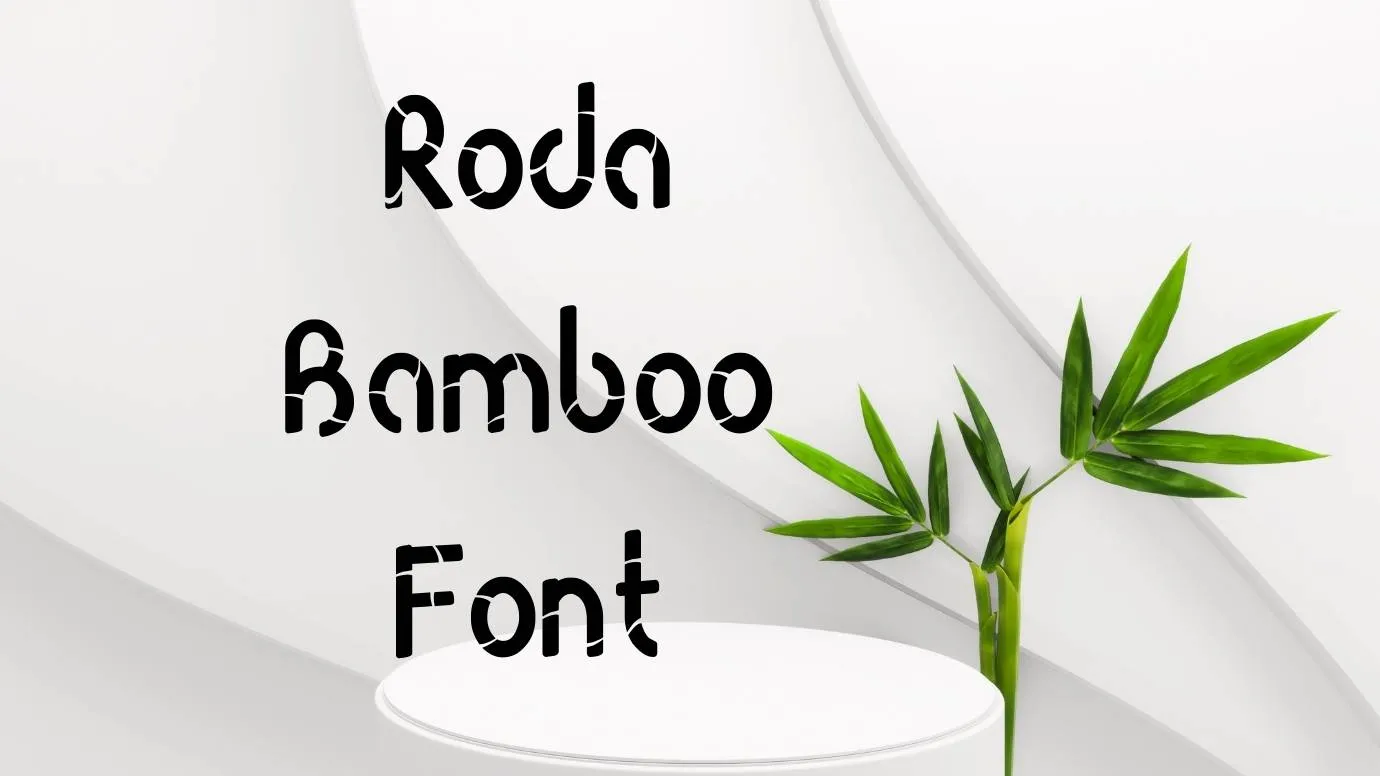
Roda Bamboo Font Family is a glorious font that has massive fame in the design industry. This stylish font was designed by a very famous and well-known typographic designer known as Serkan Dilemek.
This classy font family was released first to the public in the year 2019.  This stylish font gives an attractive and decent look to all of your designs.
Roda Bamboo Font